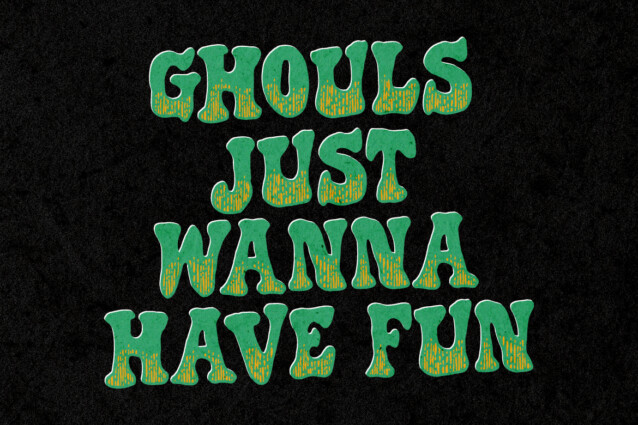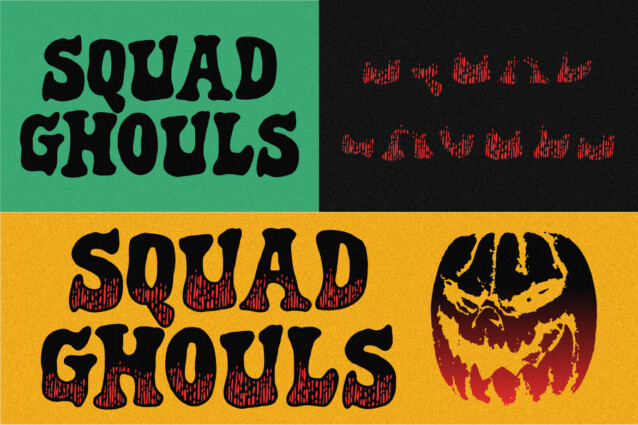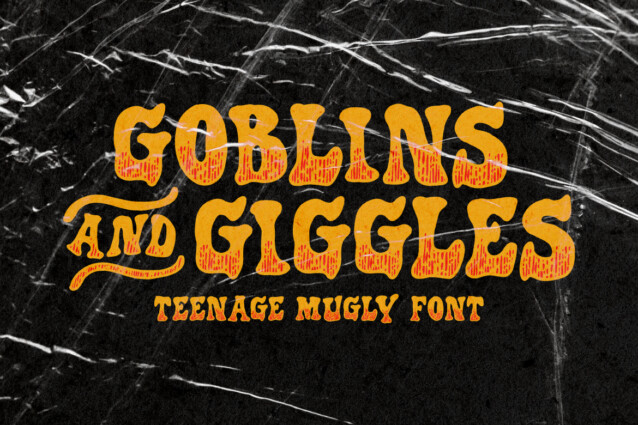
Teenage Mugly Font
Teenage Mugly Font is a Layered Halloween Typeface Font. This font is thoughtfully designed with layers, allowing you to create charming and eye-catching Halloween-themed typography. layers add depth and dimension, giving your text a very beautiful look.
With its spooky and unique letterforms, this font evokes the spirit of Halloween, perfectly capturing the essence of witches, ghosts, and all things supernatural.